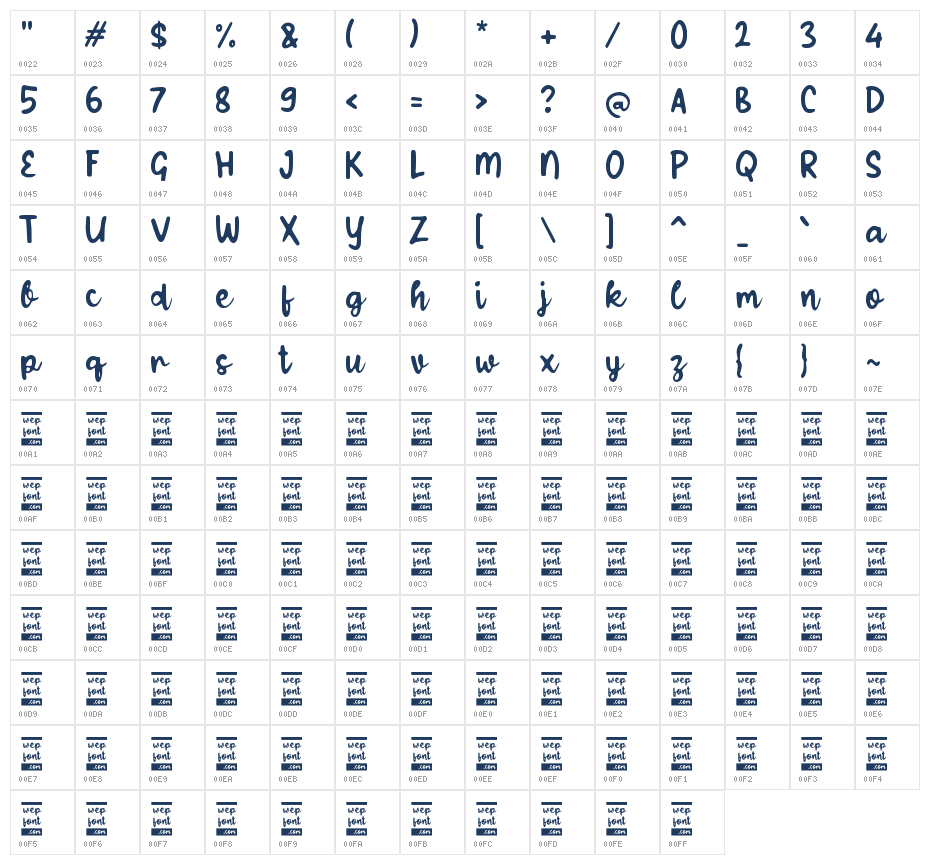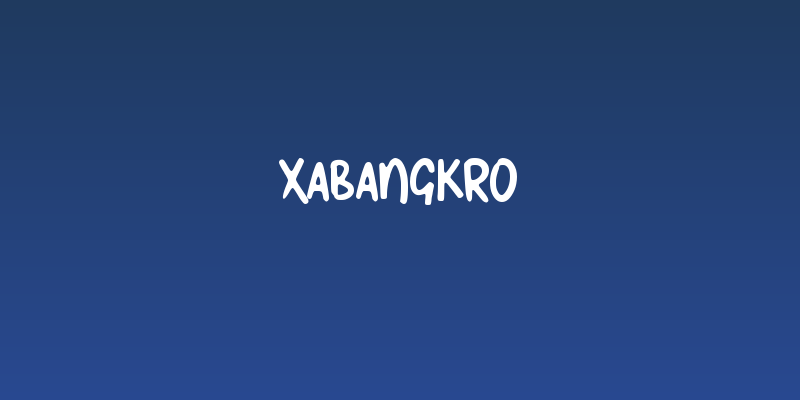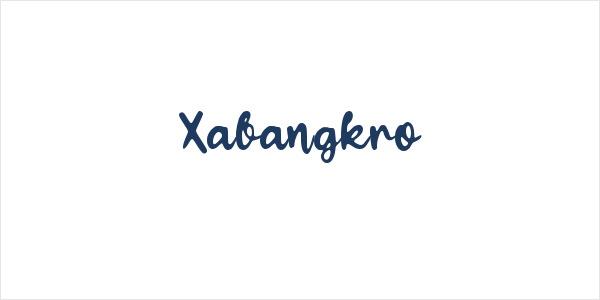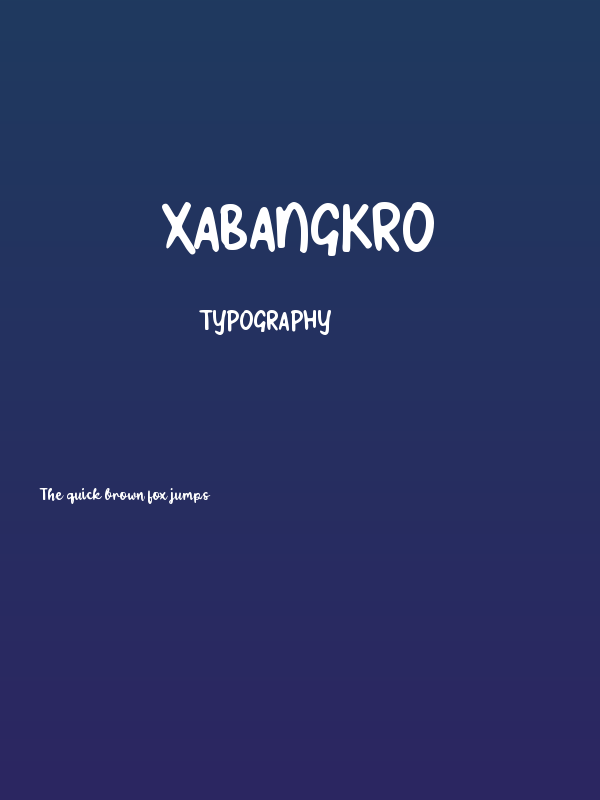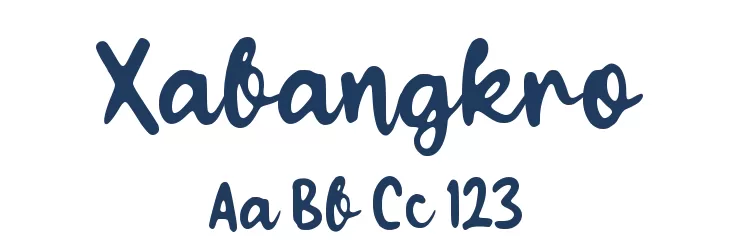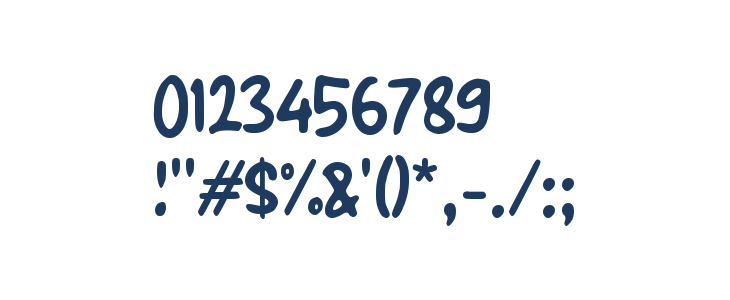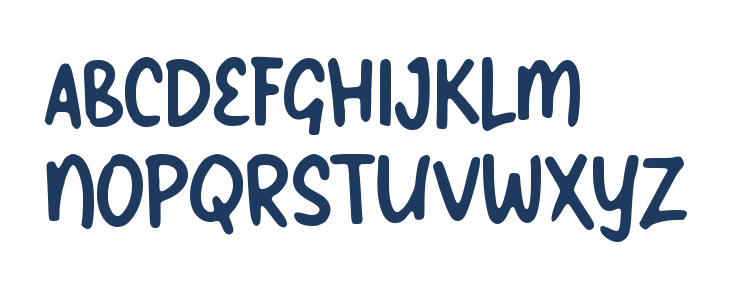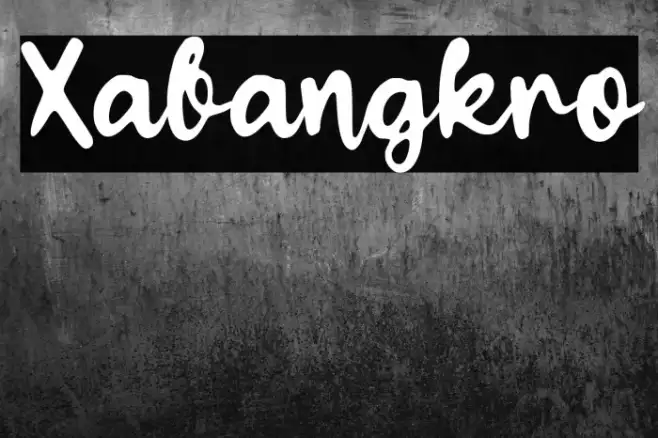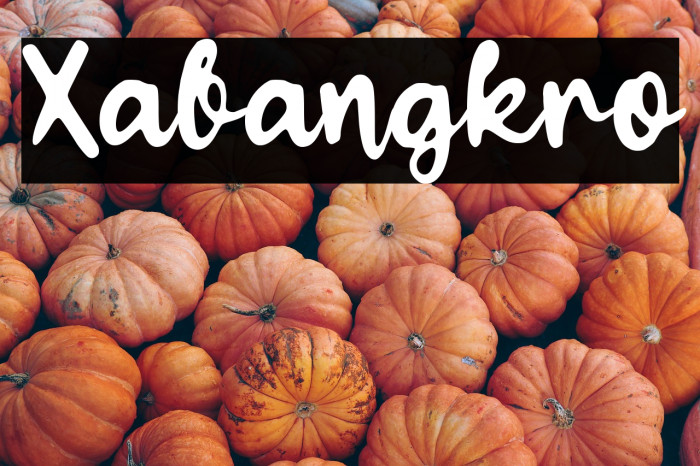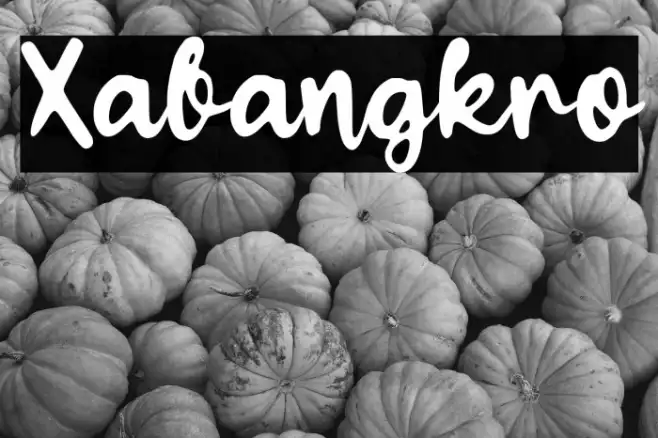
Xabangkro Font
Xabangkro Description
A playful, rounded handwritten style font with a casual and friendly appearance.
| Overall Style | Casual, Friendly, Playful |